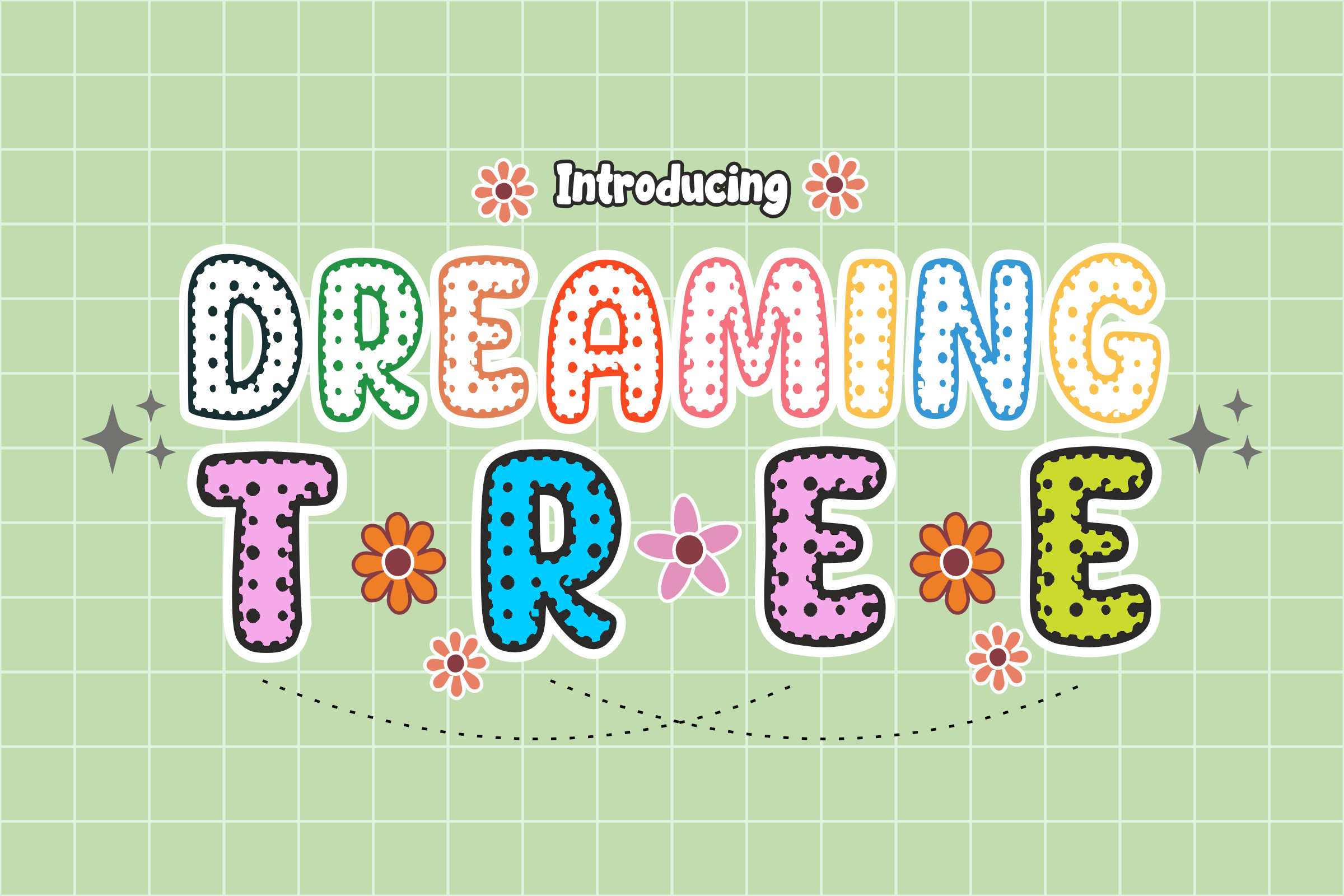
Dreaming Tree - Cartoon Font
🌳 Dreaming Tree - Playful Dotted Display Font 🌸 Bring a touch of whimsical nature to your designs with Dreaming Tree! This charming decorative font features bold, rounded letters filled with playful polka dots, creating a unique texture that feels like a blooming garden.
With its thick, sticker-style outlines and retro "flower power" vibe, Dreaming Tree is perfect for projects that need to be cute, friendly, and full of personality. Whether you are designing for spring events, kids' brands, or crafty DIY projects, this font will make your text pop with joy!
✨ What’s Inside: Uppercase Letters: Chunky, dotted characters that stand out. Numbers 0-9: Matching playful numerals. Simple Symbols: Essential punctuation to complete your message.
🎨 Perfect For: 🌿 Spring & Easter: Greeting cards, party invitations, and seasonal decor. 🧸 Kids & Nursery: Baby shower invites, clothing, and toy packaging. ✂️ Cricut & Crafts: Sticker designs, vinyl decals, and scrapbooking. 🏷️ Branding: Playful logos, merchandise, and social media quotes.
Plant the seeds of creativity in your next project with the Dreaming Tree font!